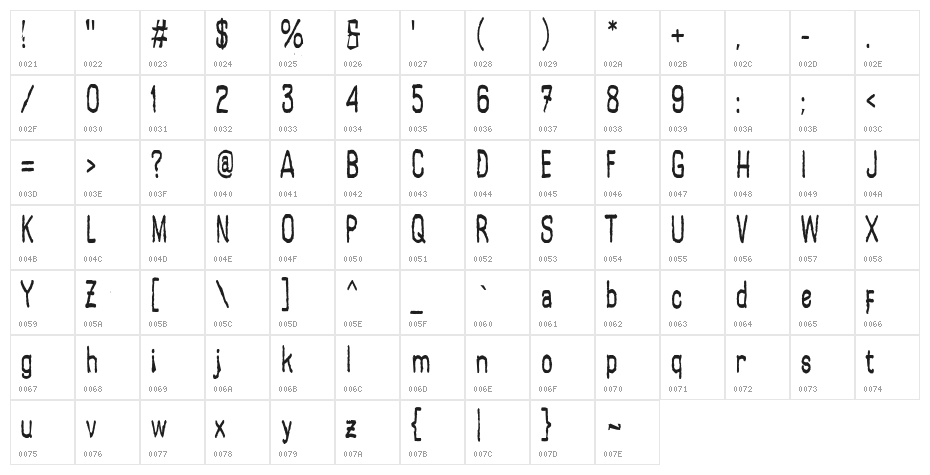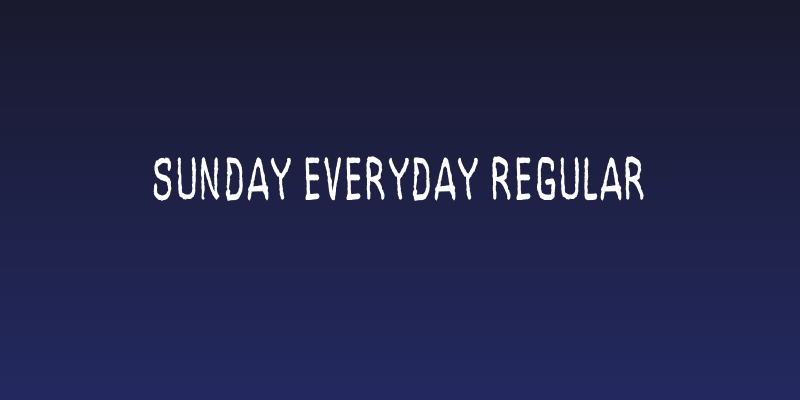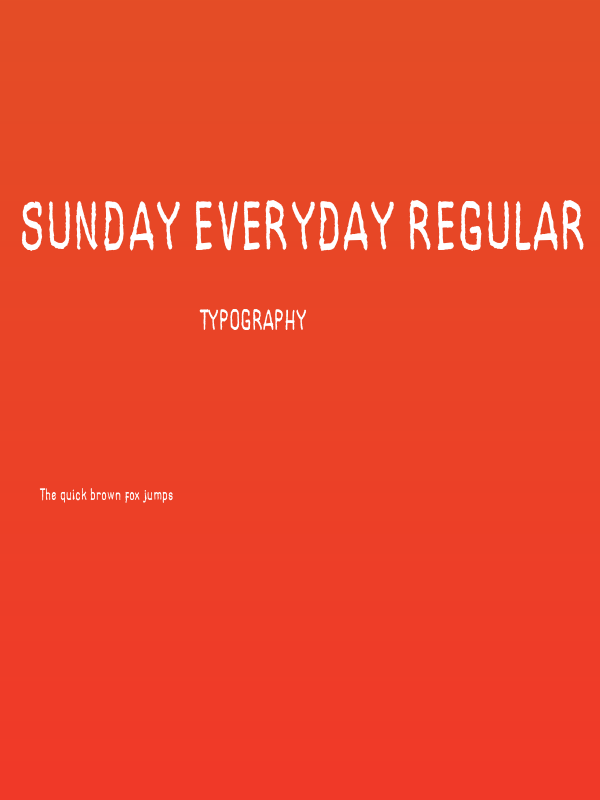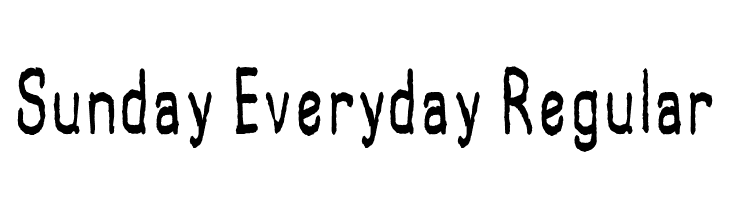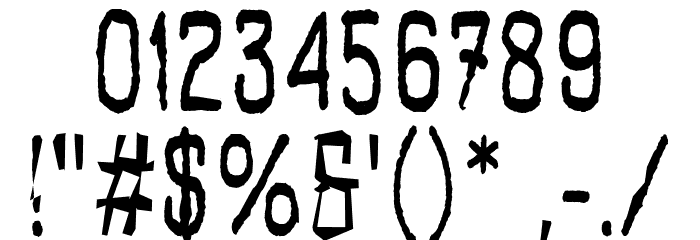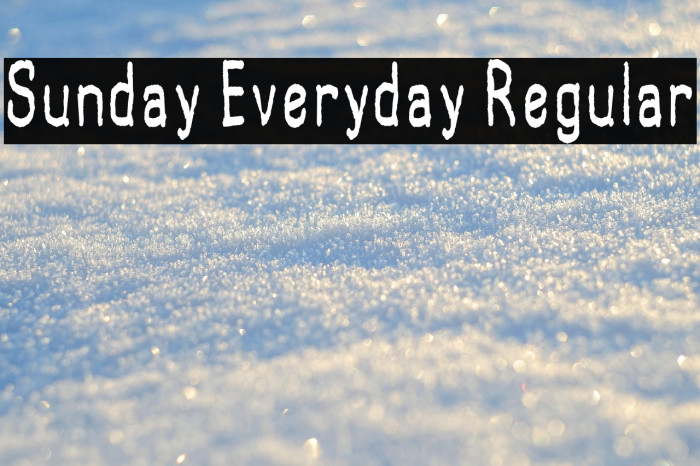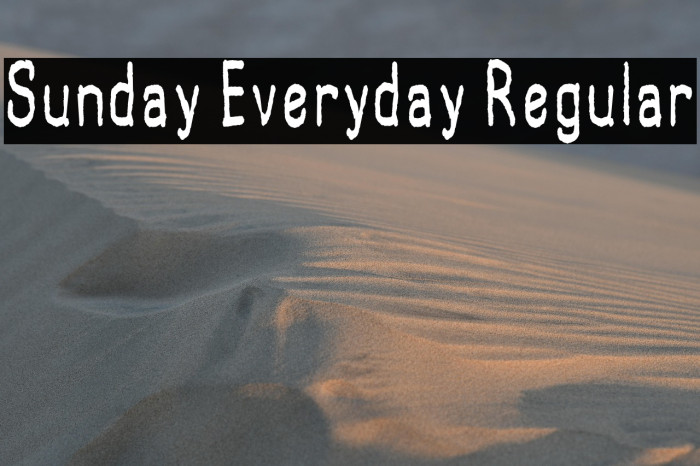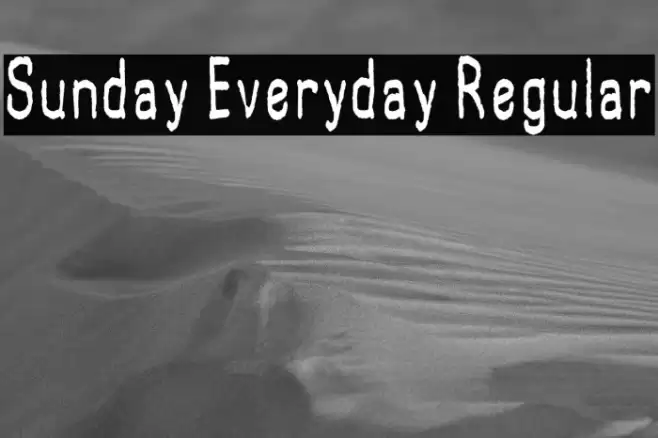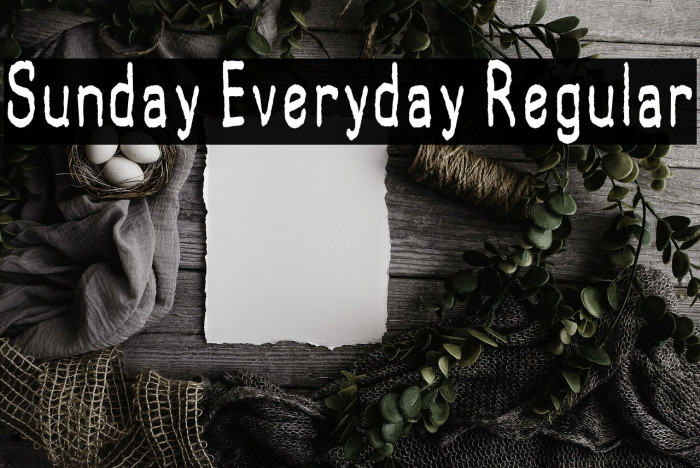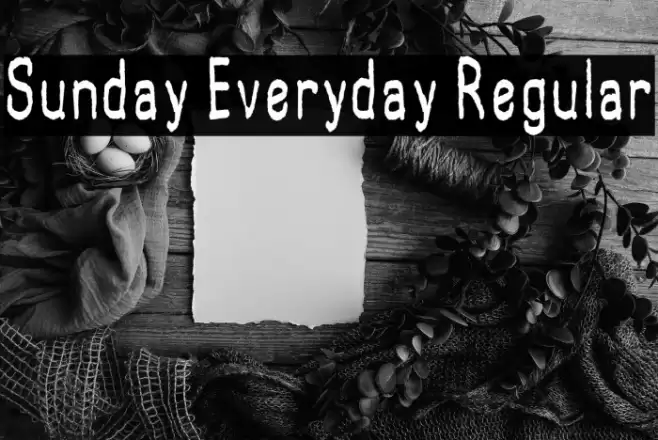
Sunday Everyday Regular Font
| حالة الاستخدام | Logos, Headlines, Artistic projects |
| مشاريع مقترحة | Ideal for greeting cards, invitations, posters, and branding that seeks a personal and artistic touch. |